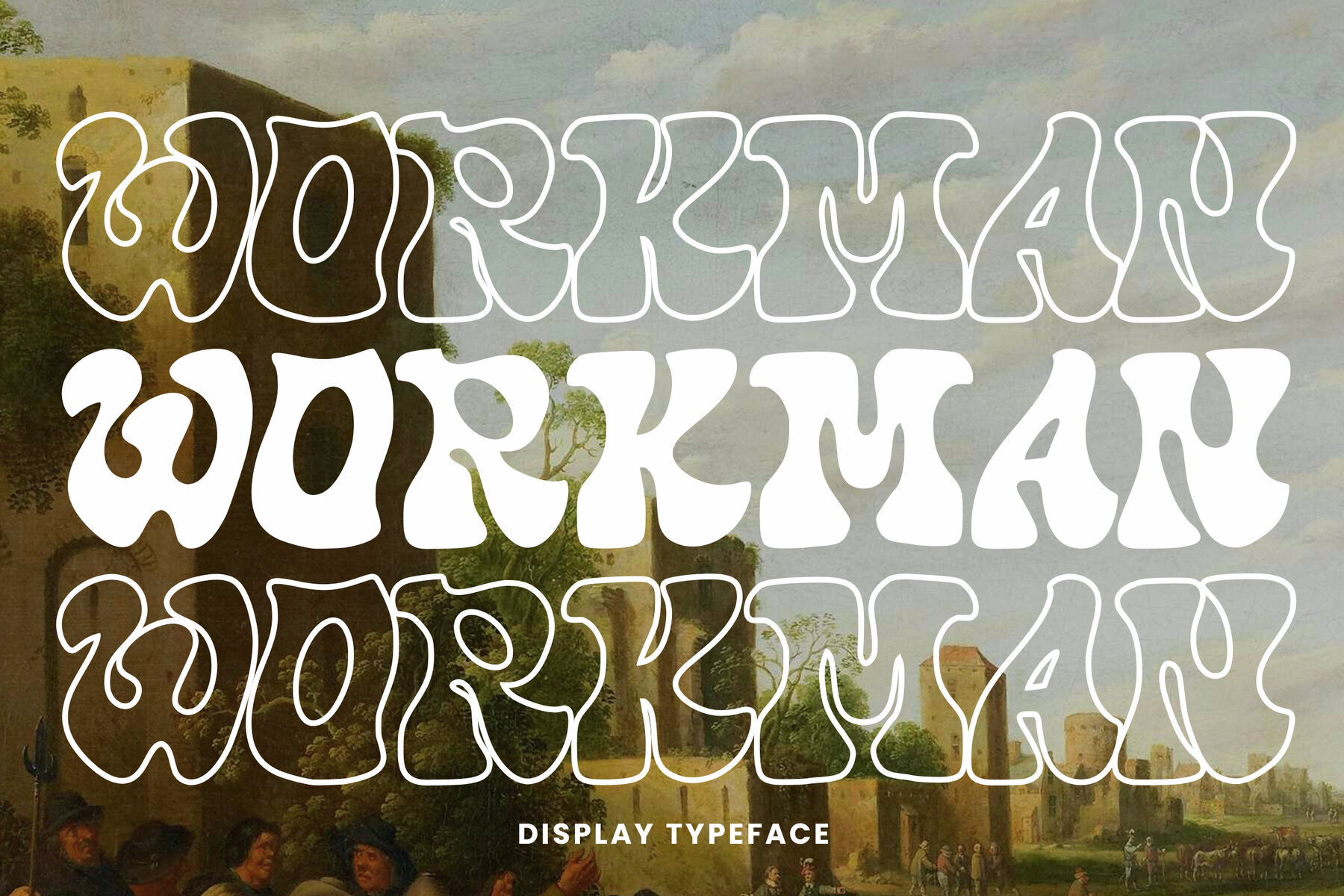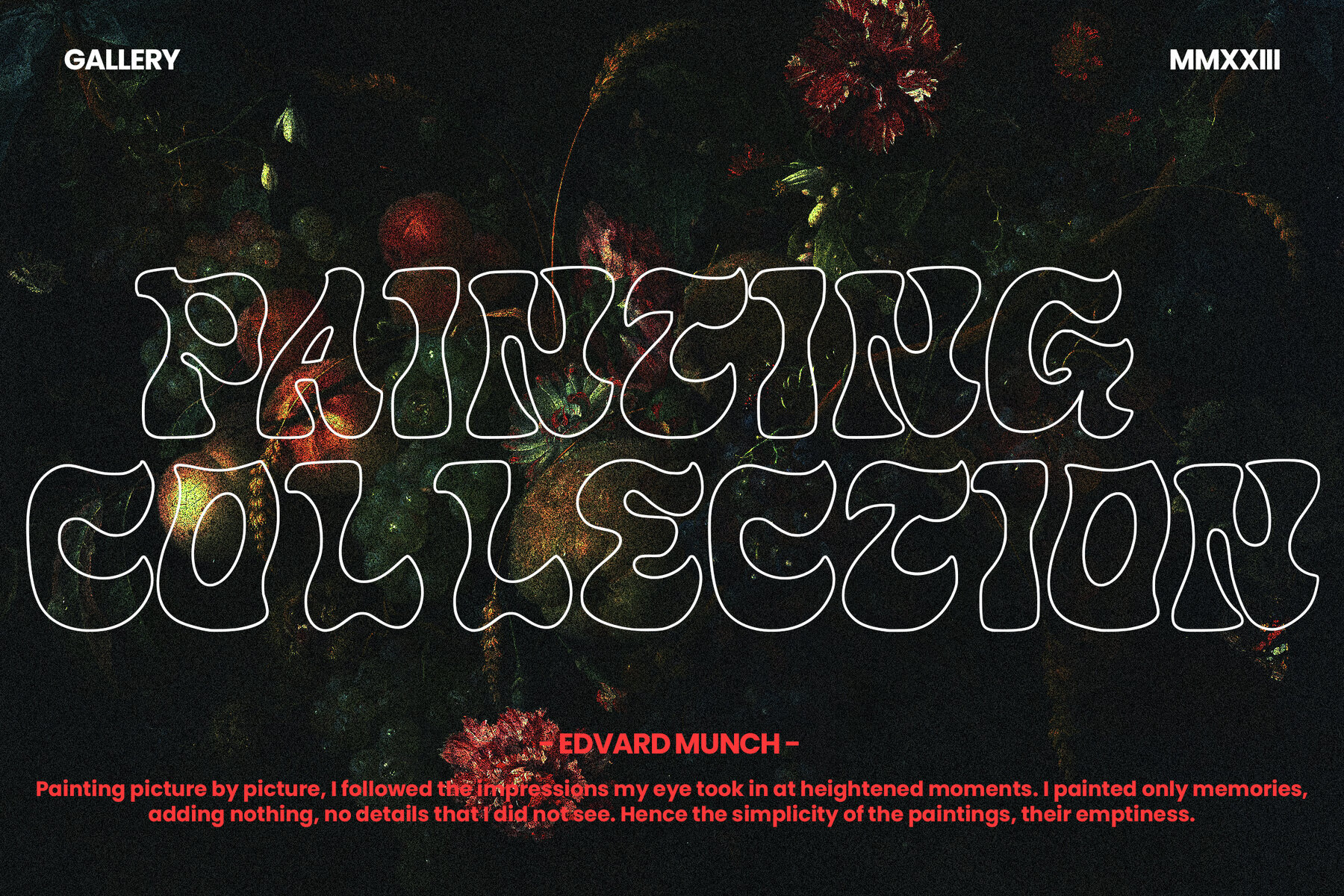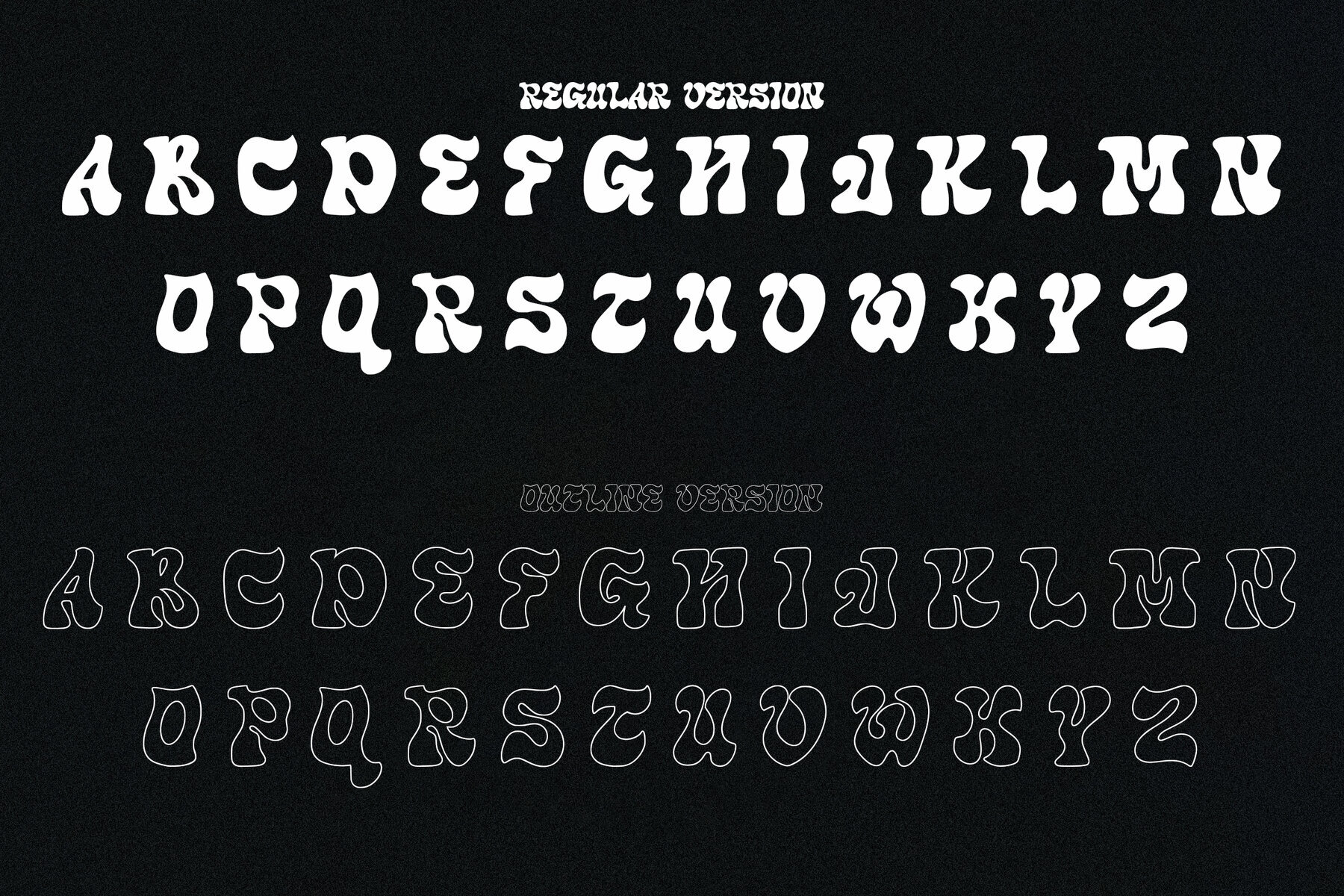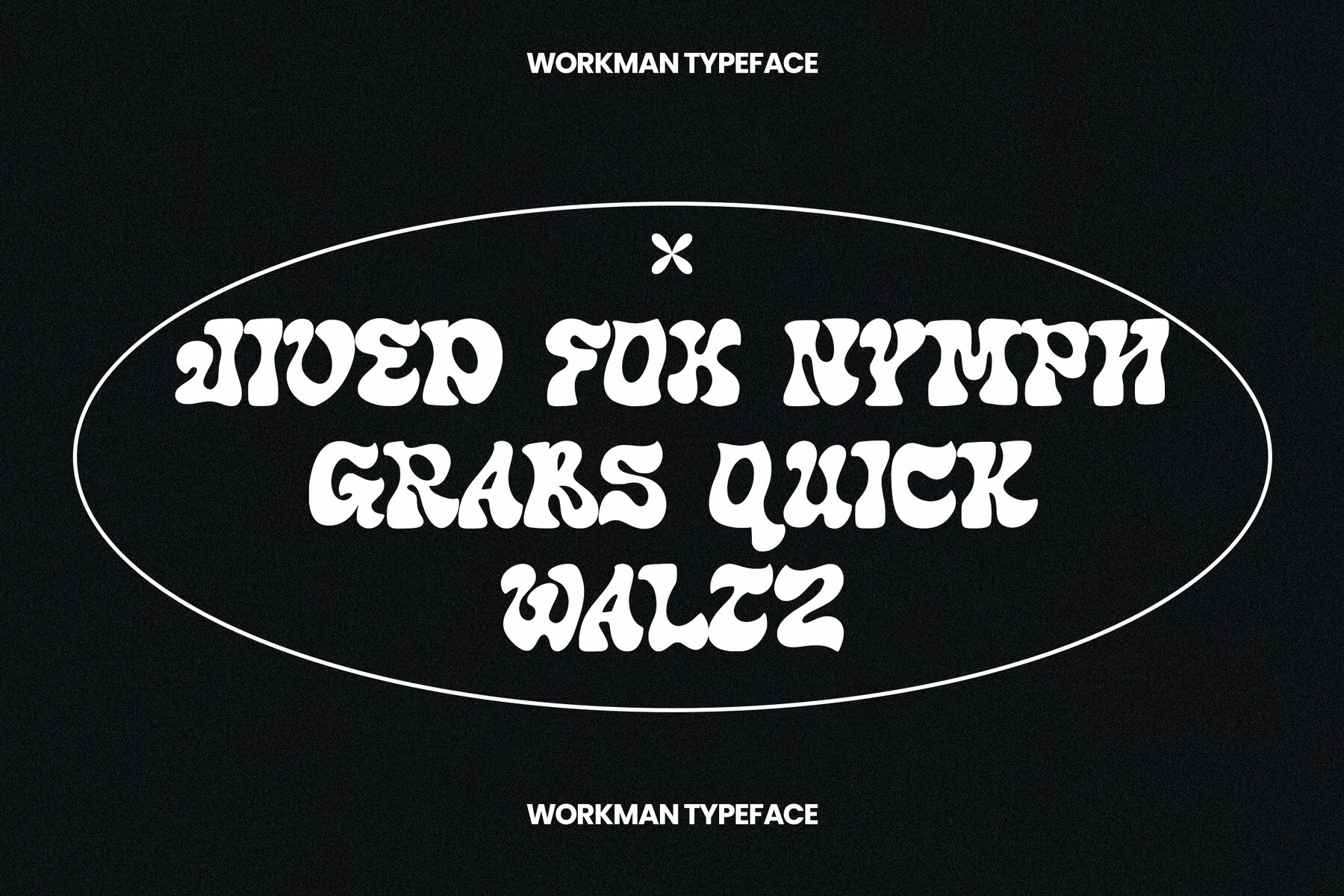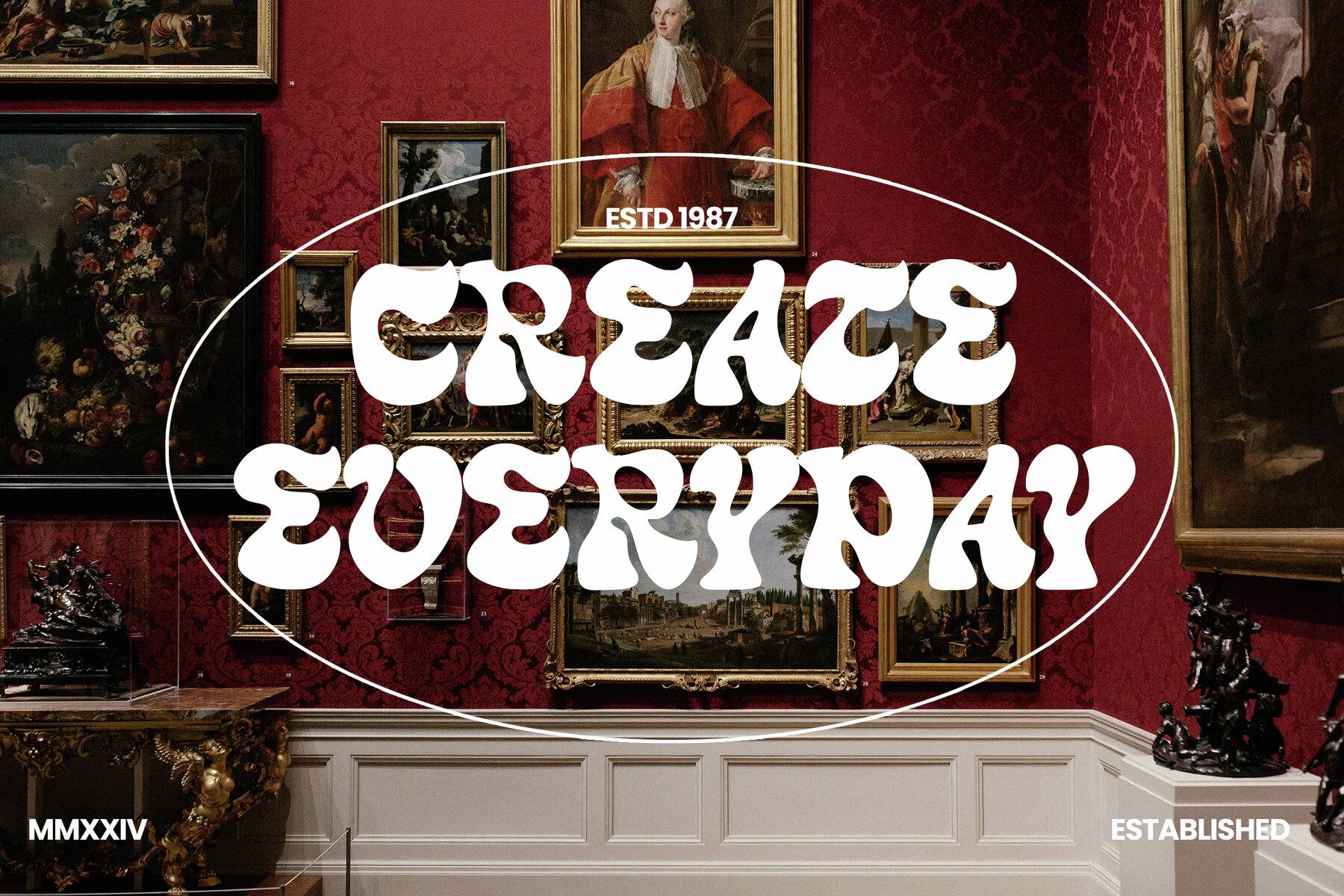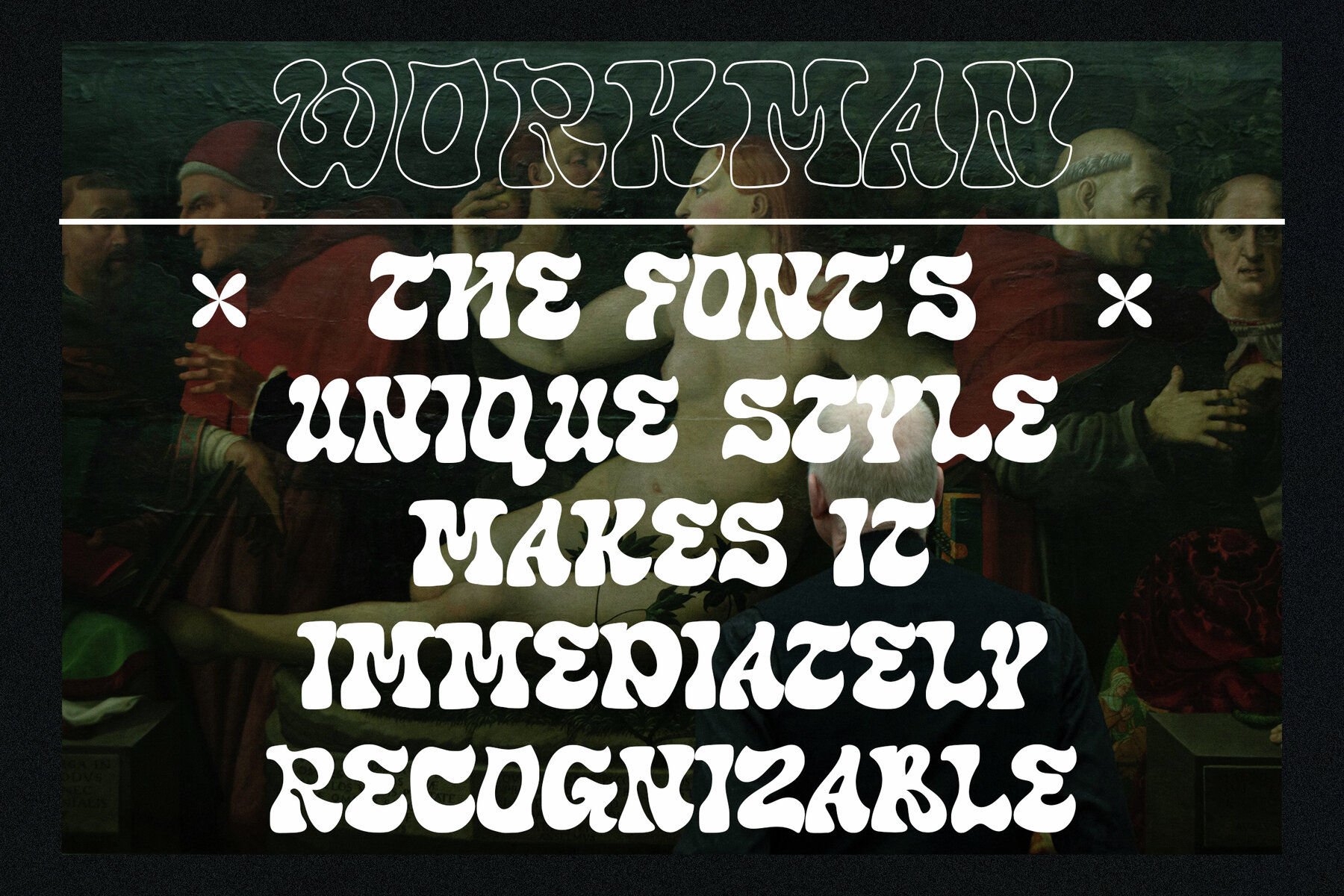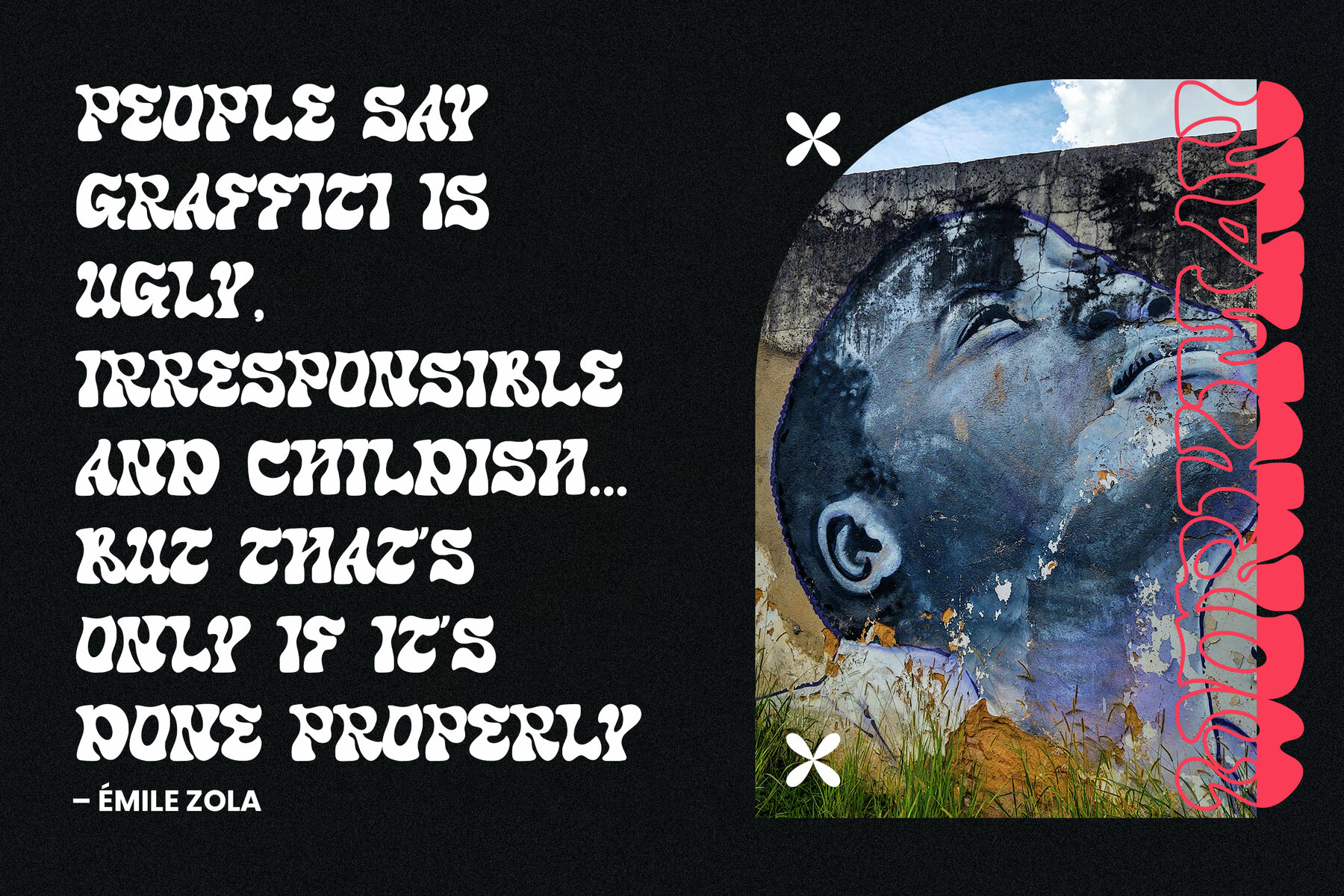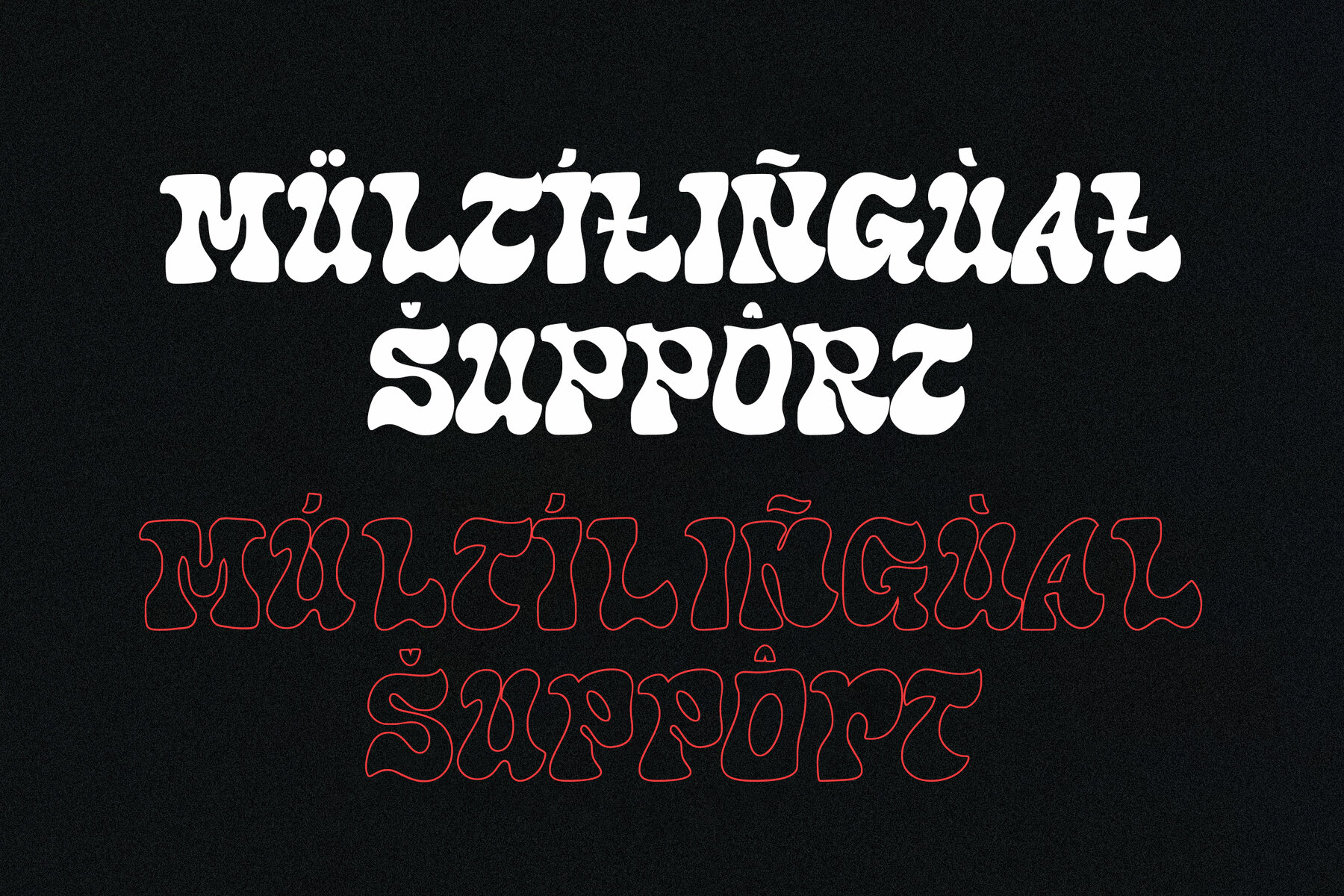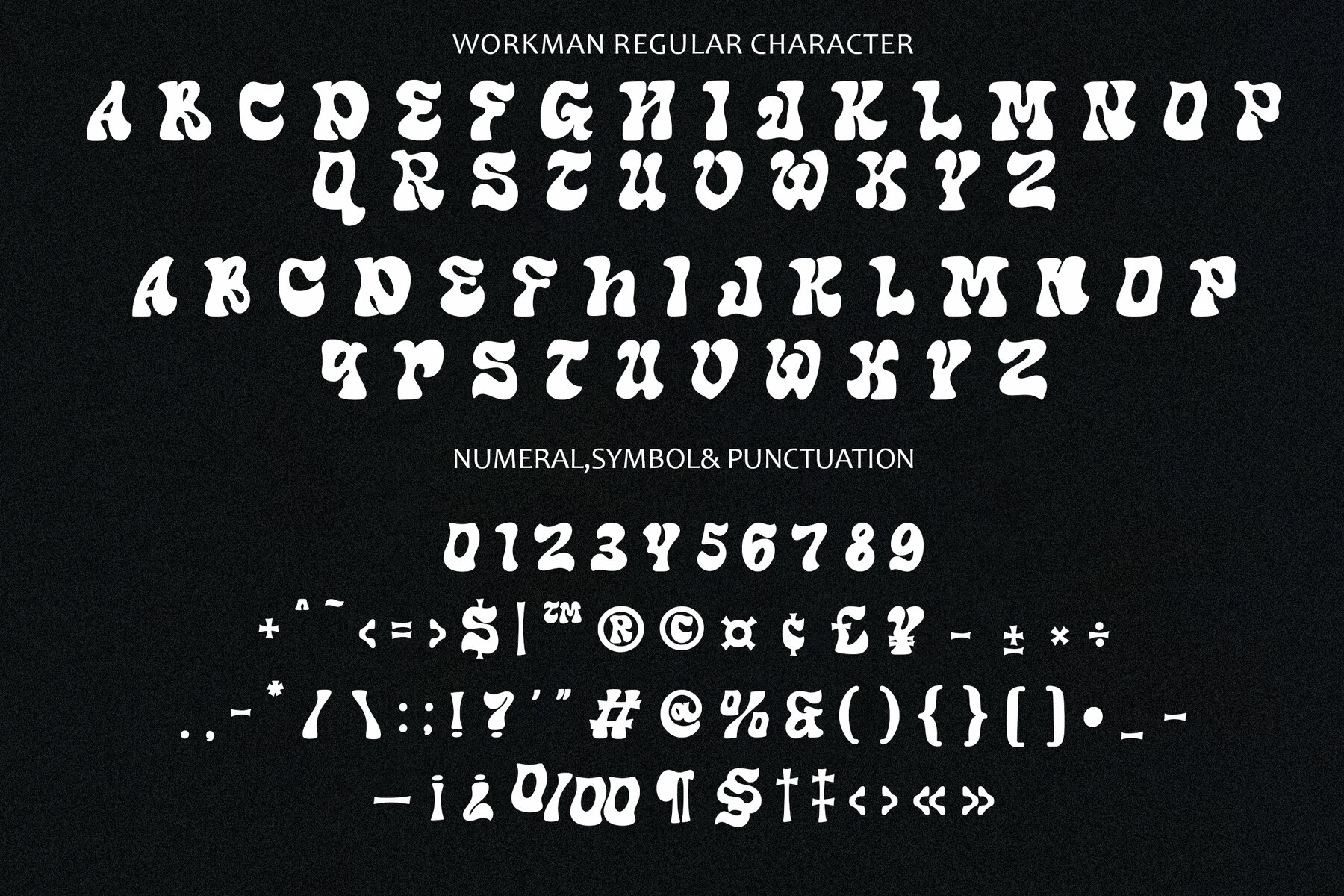
Workman Font
"Workman" is a robust and impactful display typeface designed to command attention and create bold statements. Ideal for headlines, titles, and any prominent text, its heavy weight ensures the text stands out in any design context. The solid structure and geometric precision give it a sense of strength and modernity, making it reliable and professional. The font's clean lines and well-balanced proportions contribute to a cohesive visual appearance, enhancing its readability and legibility even from a distance.
Versatile for various design needs, "Workman" includes an extended character set with multiple glyphs, punctuation marks, and special characters, supporting a broad range of languages. Its multiple weights and styles allow for flexible use across different contexts while maintaining a unified look. Suitable for both digital and print media, "Workman" enhances the visual appeal of websites, social media graphics, posters, banners, and advertisements. Its memorable design and strong visual identity make it perfect for branding and logo design. The font's modern, professional look aligns with contemporary trends, making it a timeless addition to any designer's toolkit.